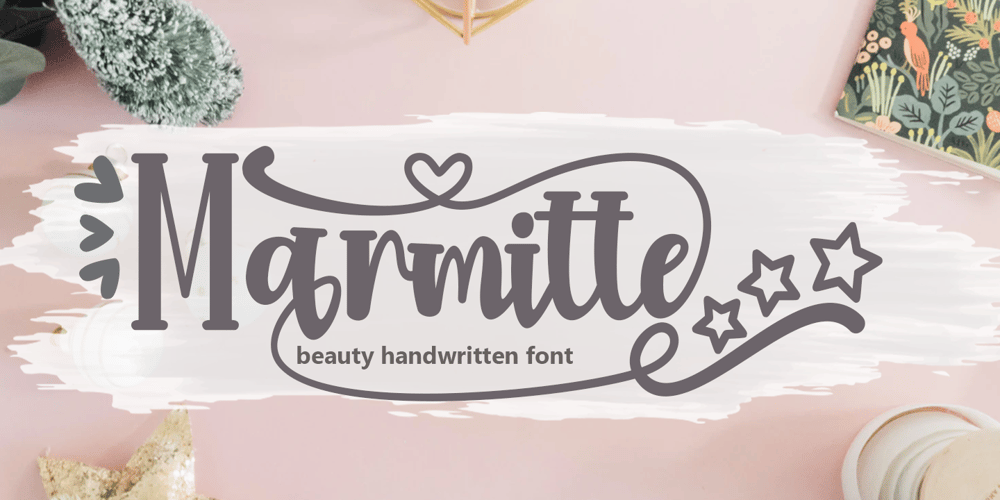
Marmitte
Marmitte font
Marmitte Font Family was designed by Arief Tri Sulistiyono and published by Supersemarletter. Marmitte contains 1 styles and family package options. Marmitte is a modern, cute and quirky handwritten font. It has many special features including alternative glyphs and ligatures. Use it to add a special touch to your designs!Font Features :• Regular version• Character set A-Z in uppercase and lowercase• Ligatures in Lowercase and special• Alternates option• Numerals & Punctuation• Accented Characters• Multiple Languages Supported• Format File: OTFRecommended to use in Adobe Illustrator or Adobe Photoshop with opentype feature.If you have questions, just send me a message and I’m glad to help.Best Regards,Supersemar Letter